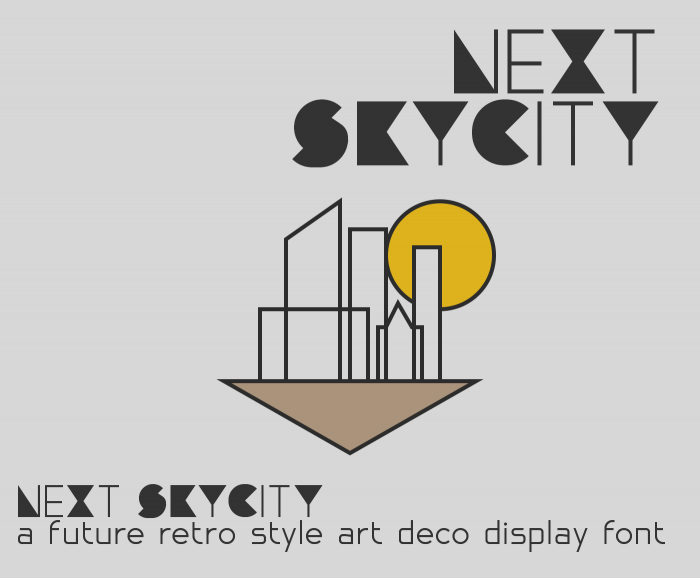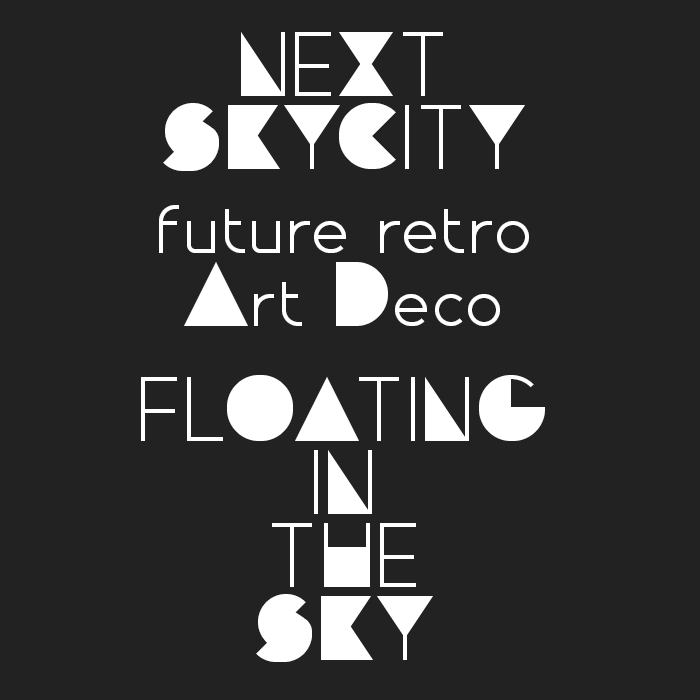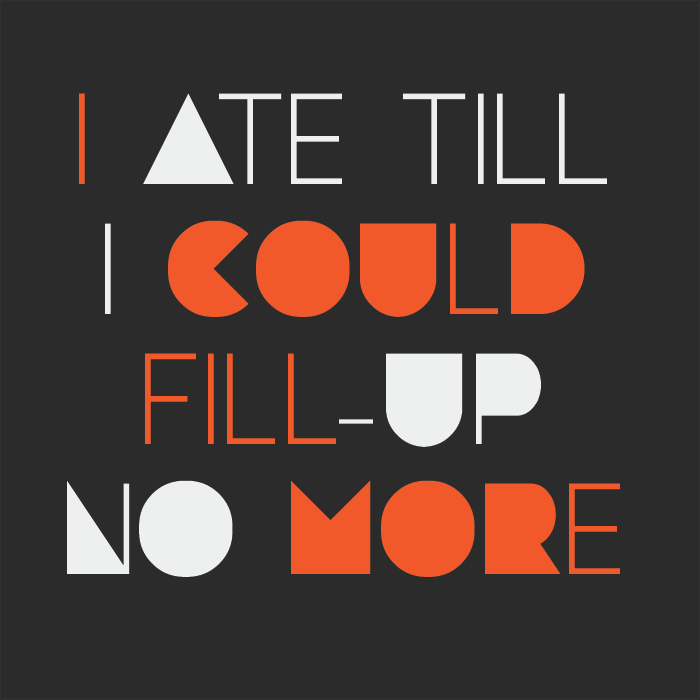
• NEXT SKYCITY - A decorative future-retro art deco style display typeface.
This is a remastered and extended sequel to an pre-existing older design I did.
Now, the reason for this was due to the fact that there was a lot going on in the older version I simply just wasn't satisfied with.
=======================================================
This new and extended version includes an overall more streamlined and consistent design. Much improved and more balanced looking numerals.
Also have I corrected and added numerous punctuation marks, and, last but not least.. What truly changed this previously more of a lettering idea type design into a relative usable full font is, the introdiction of a simple and legible geometric lowercase string. Make the font far more suitable for body text.
The uppercase and numeral strings are a random mix of both normal open stroke-based geometric letterforms and stylistic filled letter-contours, that, when arranged like this making the uppercase character set look playful and slightly future-ish retro at first, yet a somewhat strangely ellegant sophistication that is ever so gently present. This could be used in isolation for a strong and convincing decorative headline text, or in conbination with the lowercase for a surprisingly readable an clean looking body text that has the occasional occurance of a decorative capital letter.
Big update was made, adding many new characters, and improved lots of others.
some of the new content includes:
• full new a-z set with filled counters
• additional filled alternatives for some symbols
• collection of stylish script style ampersands
Very neat.
I love these "little" jewels.